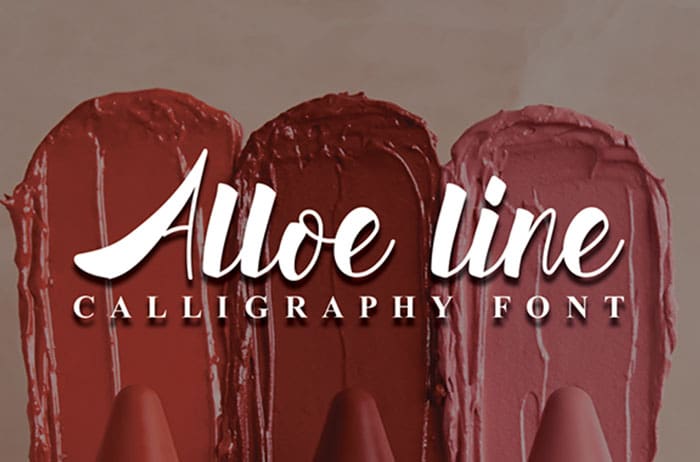
Alloe Line Calligraphy Font
Alloe Line is a magical calligraphy font carefully created with a touch of elegance. This font is PUA encoded which means you can access all of the beautiful glyphs and swashes with ease! Designed this font by Andika Studio. You can also search more freeĀ Calligraphy Fonts.